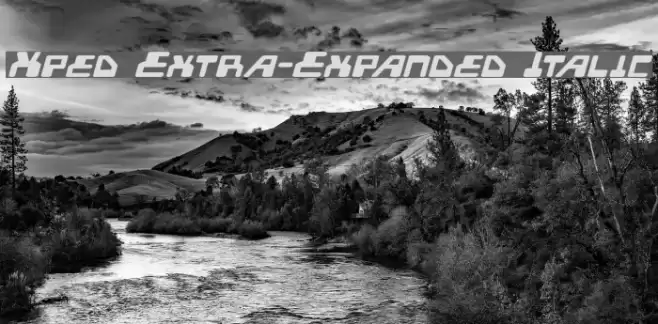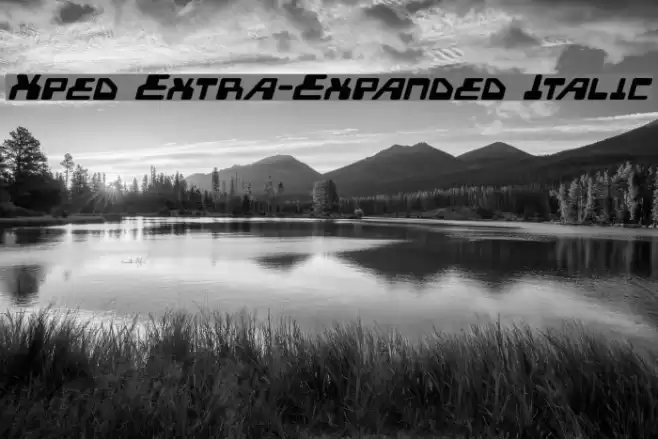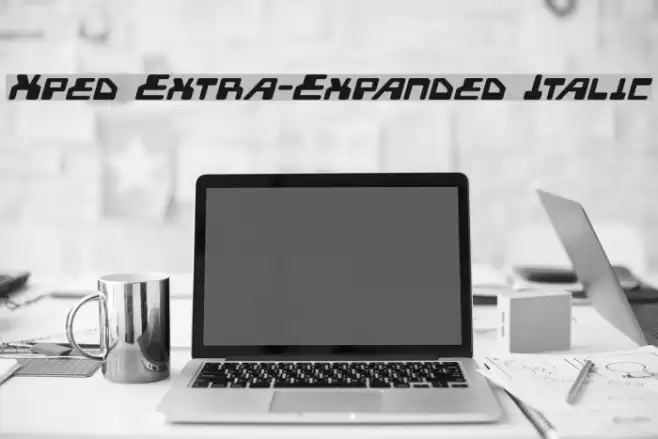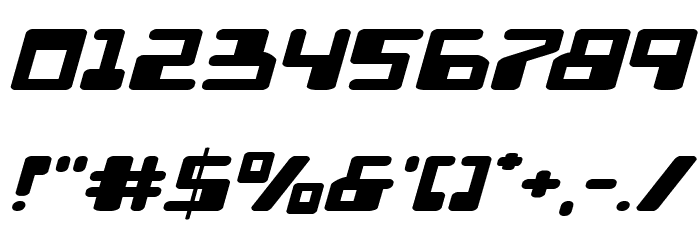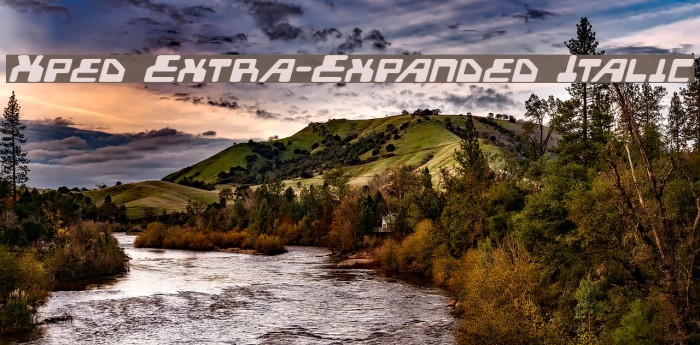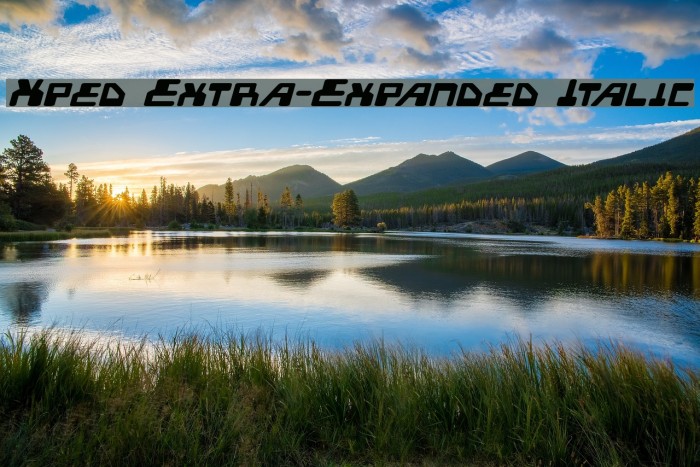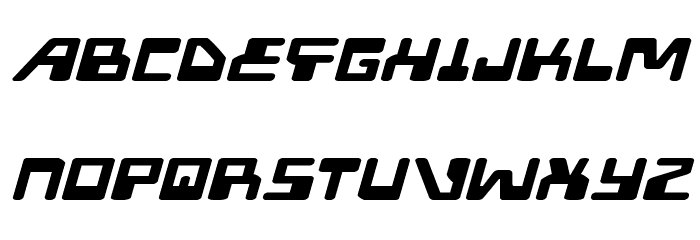
Xped Extra-Expanded Italic Font
Xped Extra-Expanded Italic Description
This font features a bold and dynamic style with a futuristic flair. The characters are extra expanded and italicized, giving them a sense of motion and energy. The strokes are thick and consistent, providing a strong visual impact. The design incorporates angular elements and sharp edges, which contribute to its modern and tech-inspired appearance. The font maintains a uniform weight throughout, ensuring readability while adding a distinctive character to each letter. Its expanded width allows for a spacious feel, making it suitable for attention-grabbing headlines and display purposes.
A bold, extra expanded italic font with a futuristic and dynamic style from Uncategorized fonts.
- Proposed Projects: Ideal for technology branding, sports team logos, video game titles, and sci-fi themed posters.